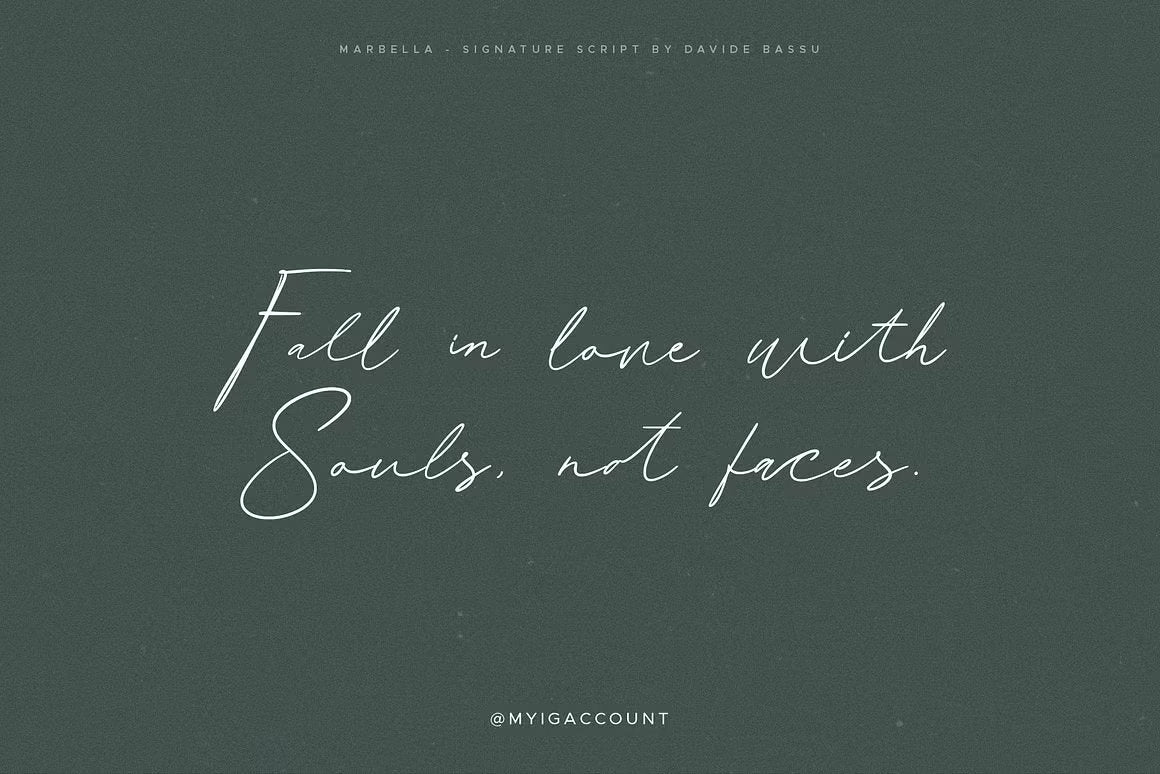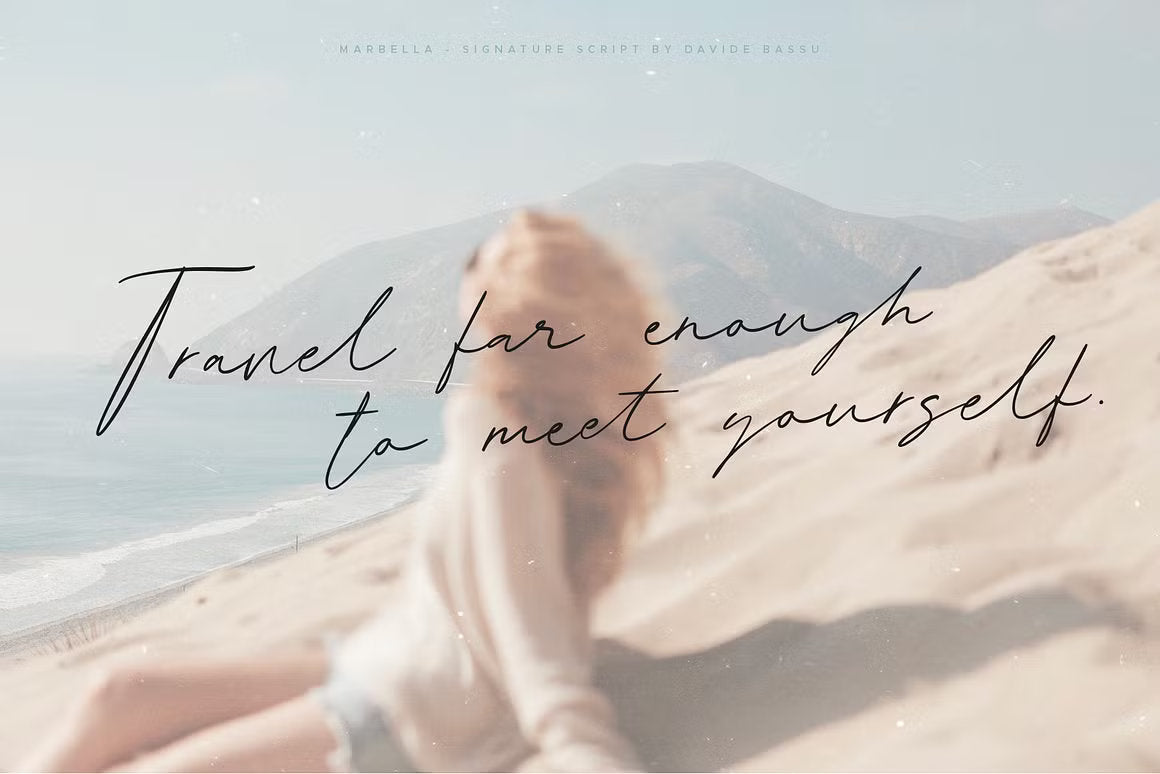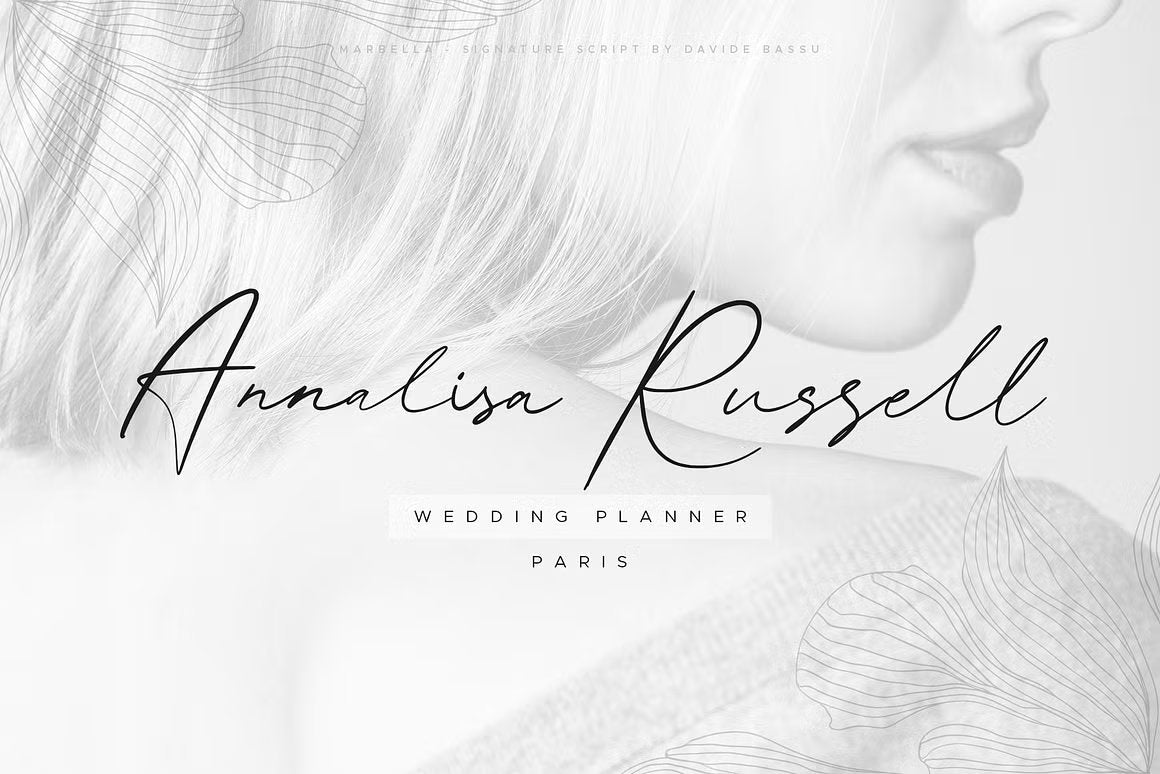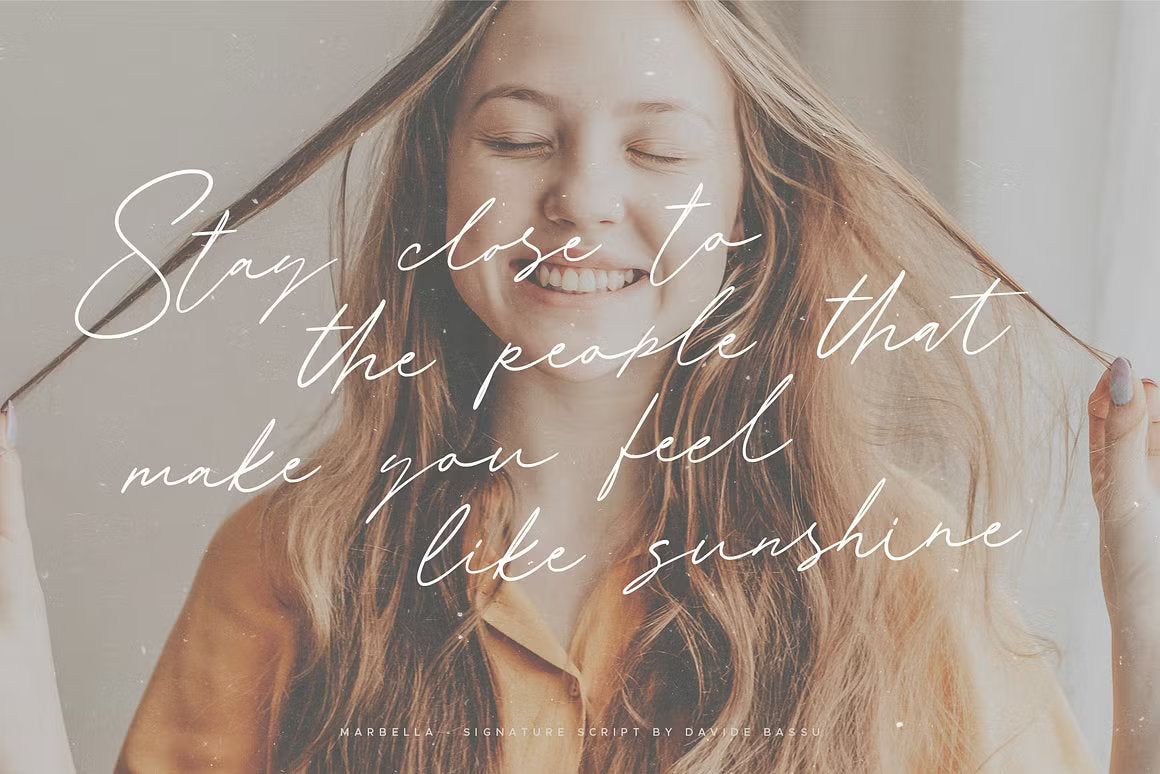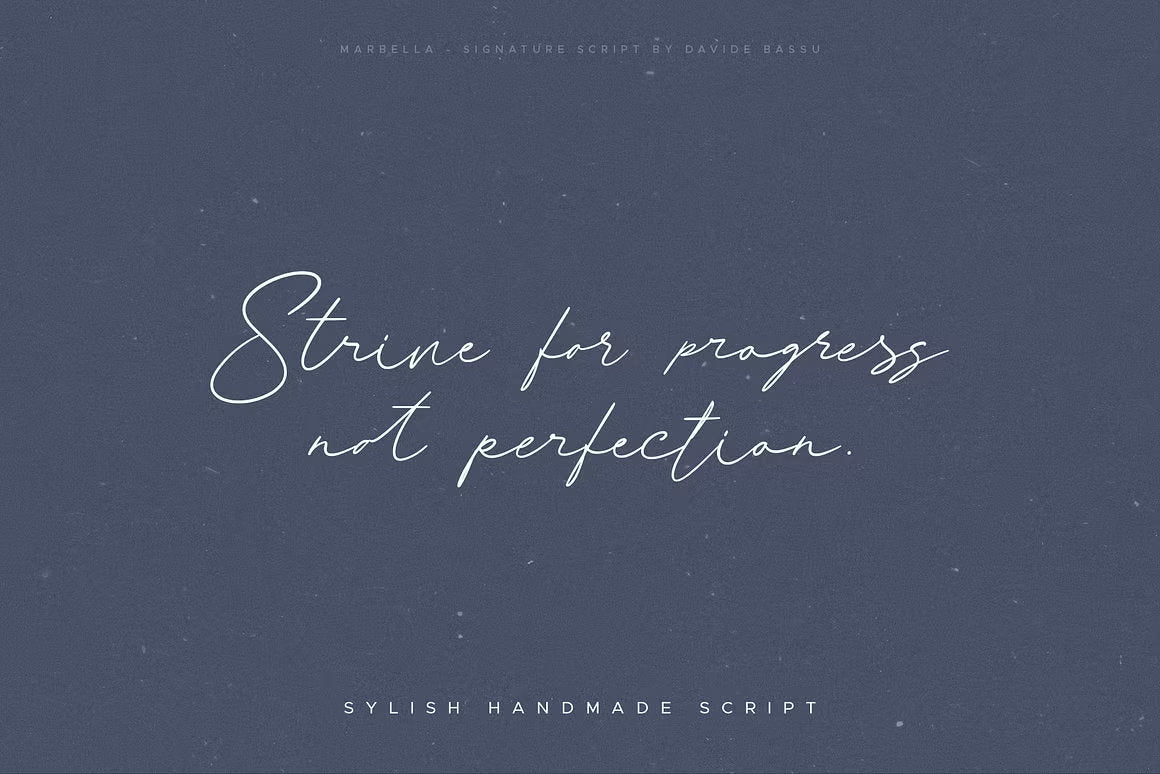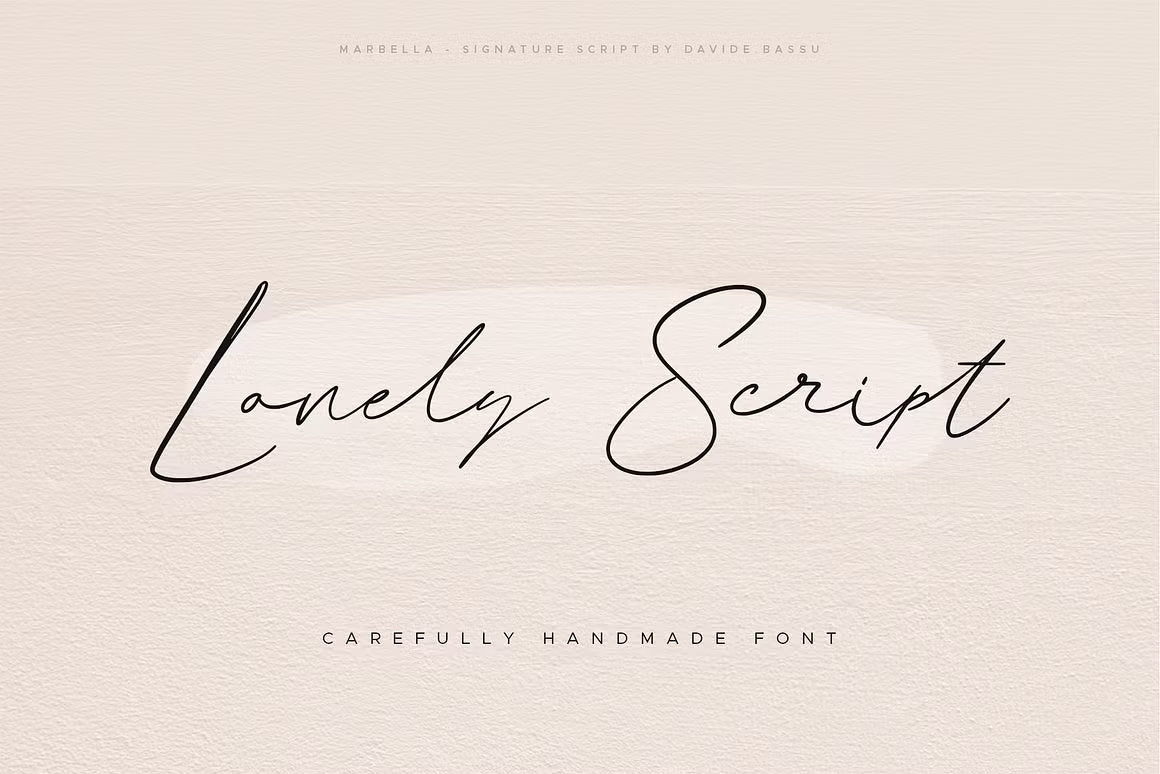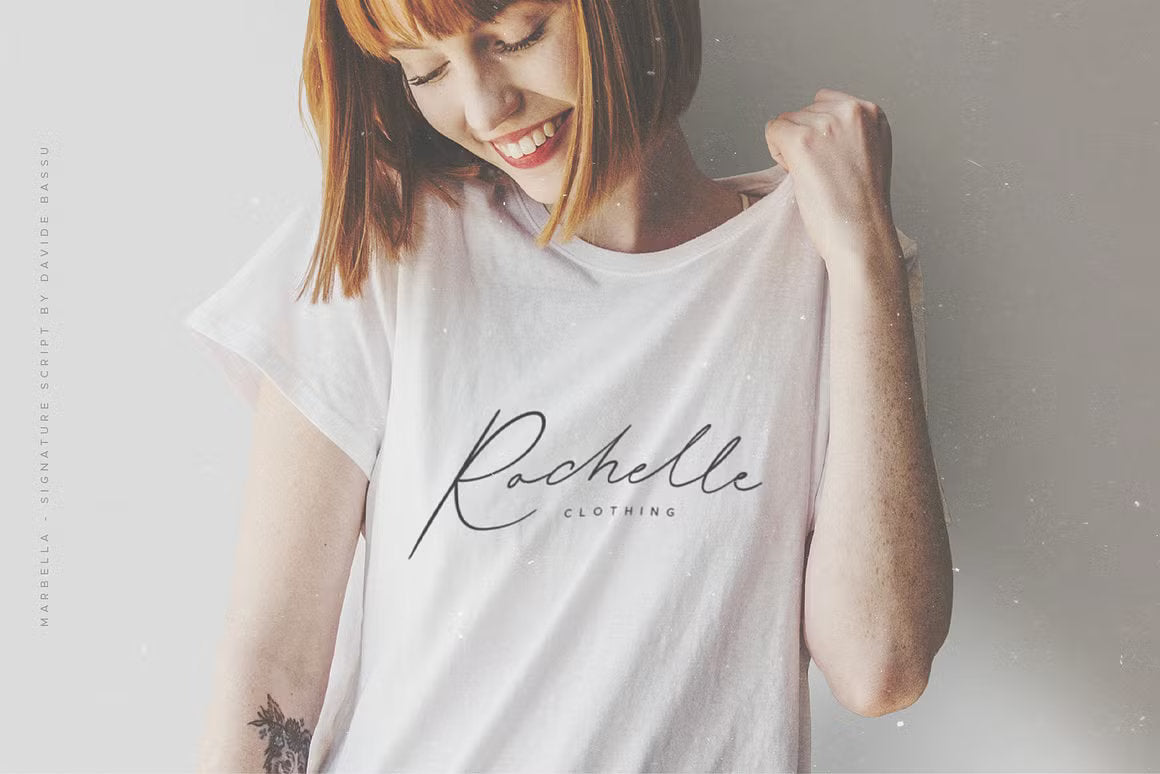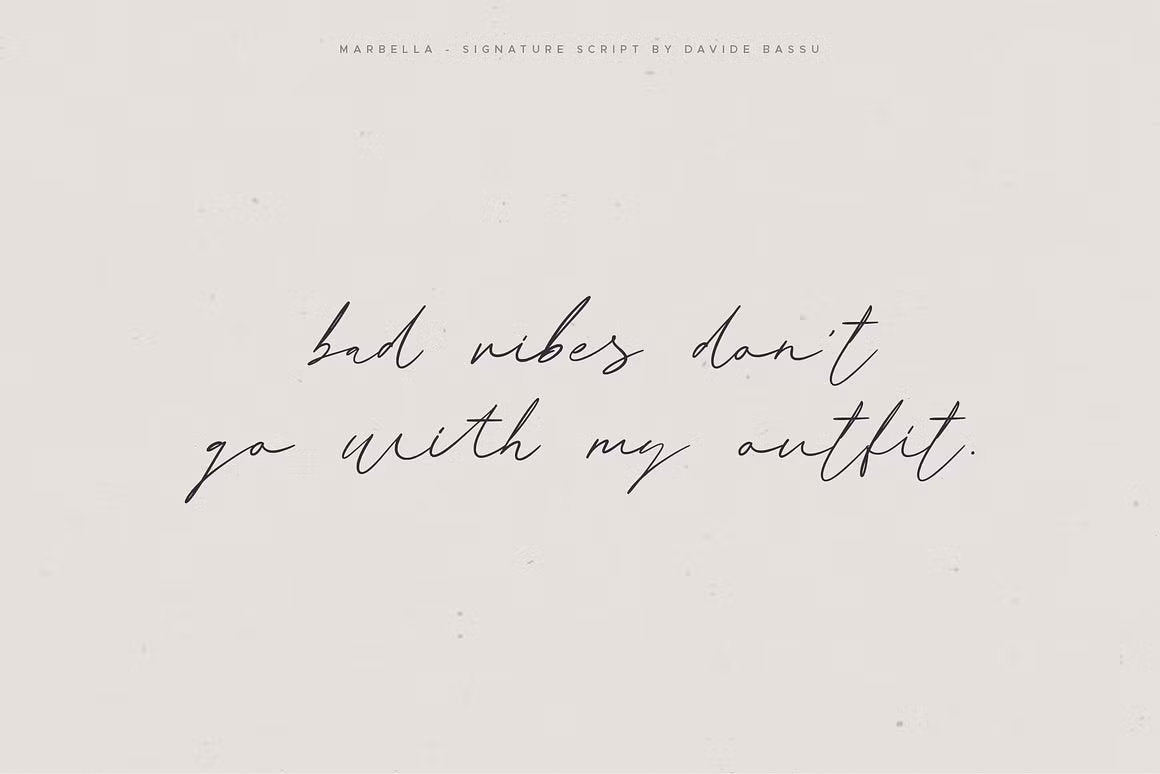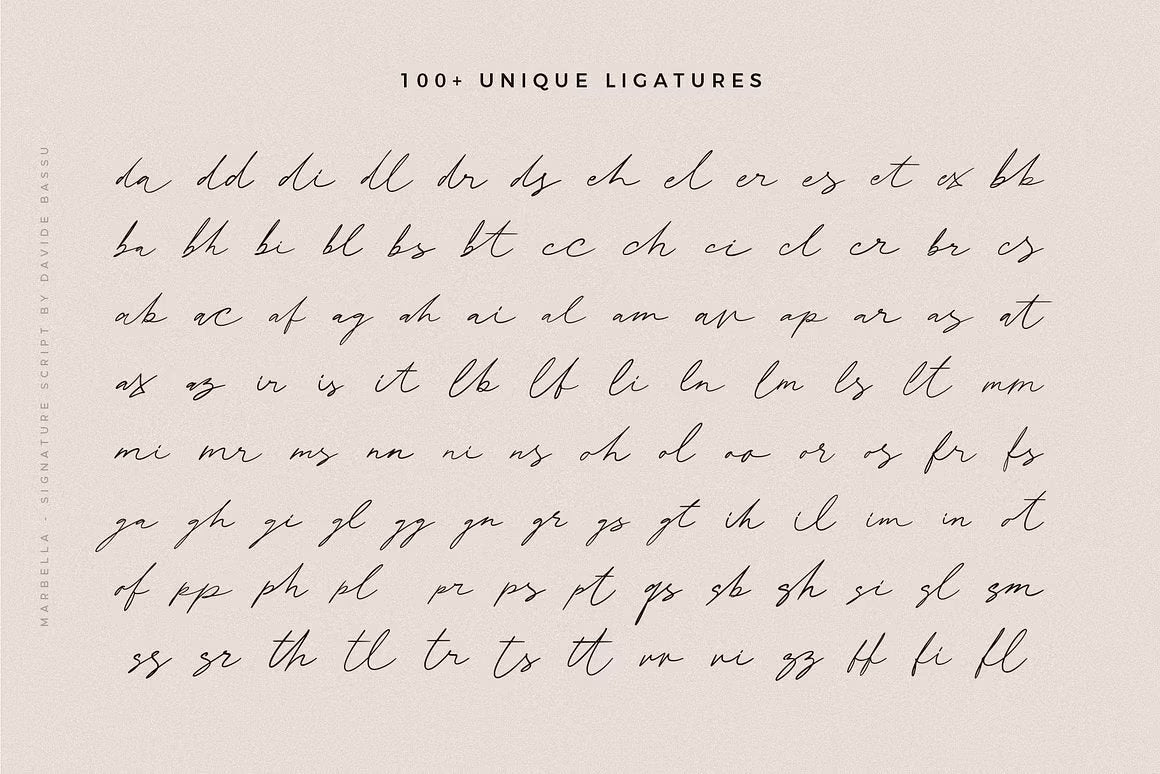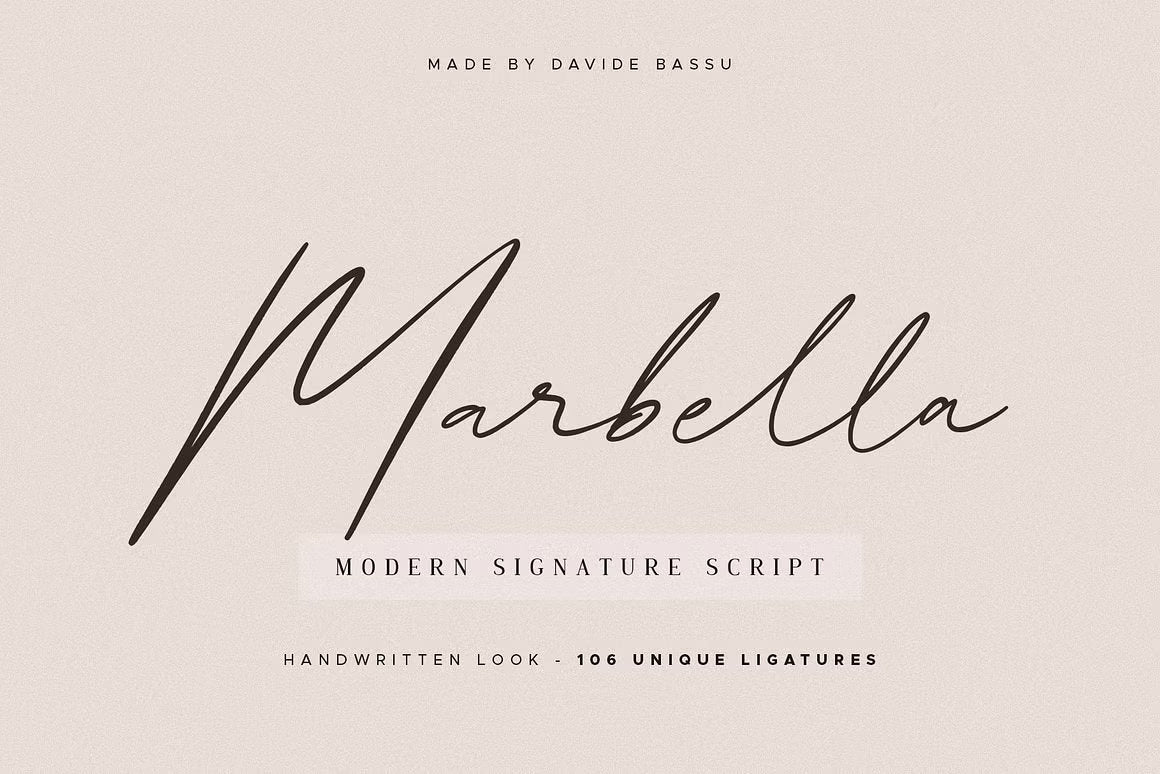
Marbella – A Handcrafted Signature Font
Introducing Marbella, a graceful handmade signature script designed to bring style and authenticity to your creative projects. With its flowing lines and carefully balanced letterforms, Marbella adds a modern handwritten touch that feels both elegant and effortless.
Perfect for logo design, branding, wedding materials, packaging, prints, and social media graphics, this font was made to shine wherever a personal and polished look is needed.
Marbella includes a full set of uppercase and lowercase letters, numerals, and a wide range of punctuation. But what truly makes it special is its 106 unique ligatures, thoughtfully designed to give your words a natural, hand-lettered rhythm.
Whether you're building a brand or crafting beautiful wedding stationery, Marbella is the signature detail that will set your design apart.